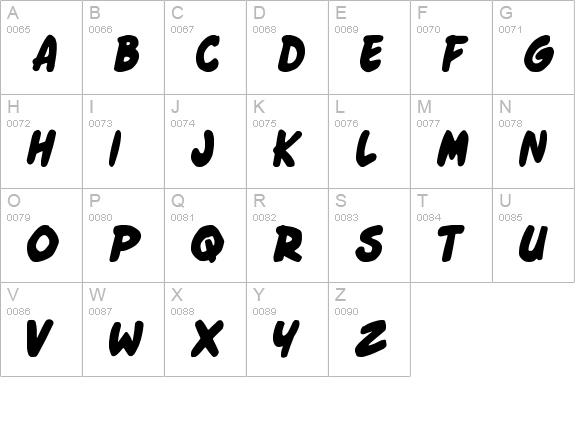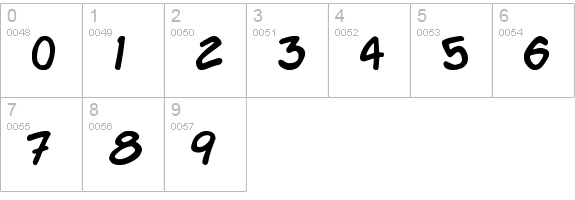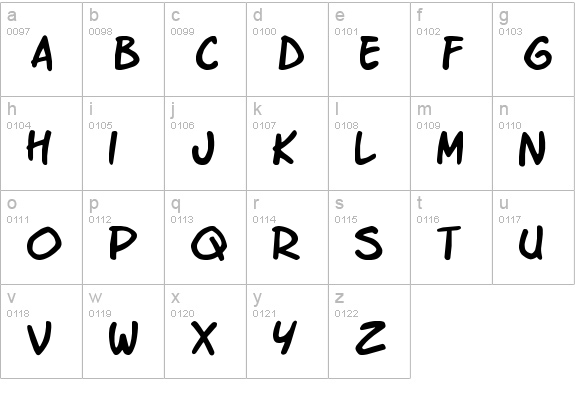
Enchilada Font Details
Enchilada font is a playful and whimsical typeface that is sure to add a touch of fun to any creative project. With its rounded edges and bold lettering, Enchilada exudes a sense of warmth and friendliness that is perfect for a wide range of design applications. What sets Enchilada font apart is not just its unique design, but also the fact that it is available for free. Yes, you read that right - this charming font can be downloaded at no cost from FontsMarket.com. Whether you're working on a poster, invitation, logo, or any other design project, Enchilada font is a fantastic choice that won't break the bank. Embrace the playful spirit of Enchilada font and let your creativity soar with this delightful typeface. Download it today and start adding a touch of charm to your designs!